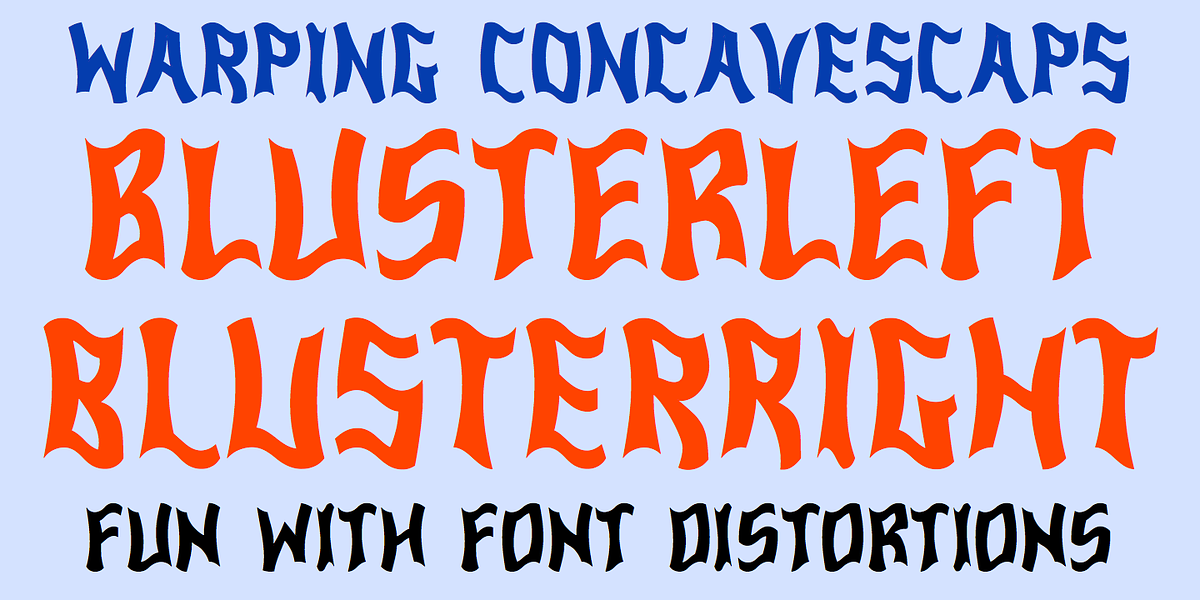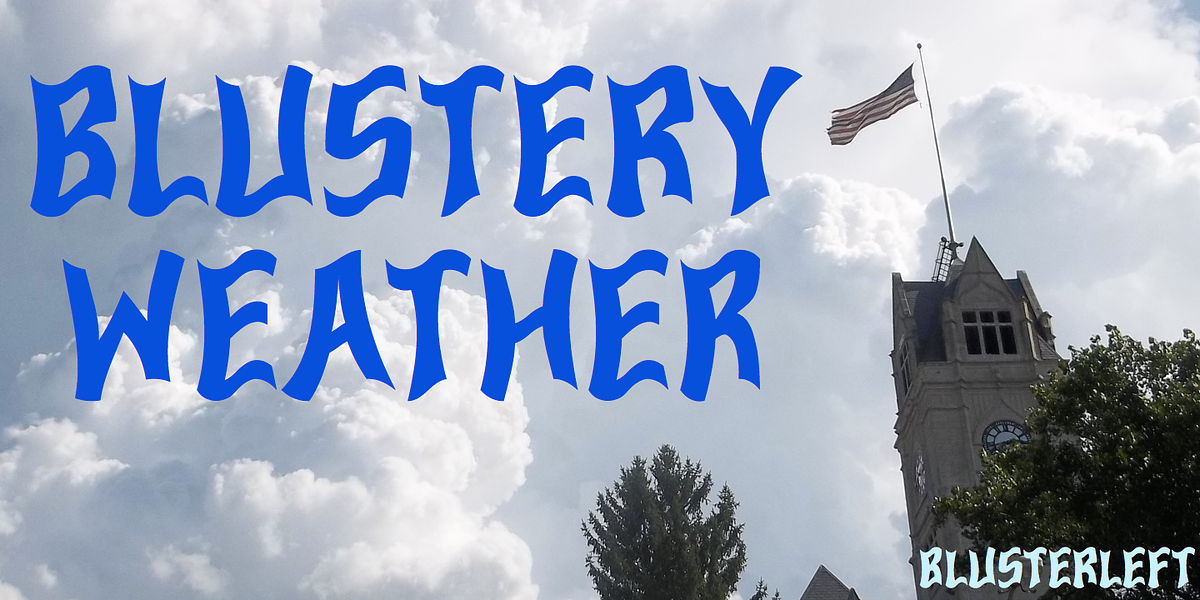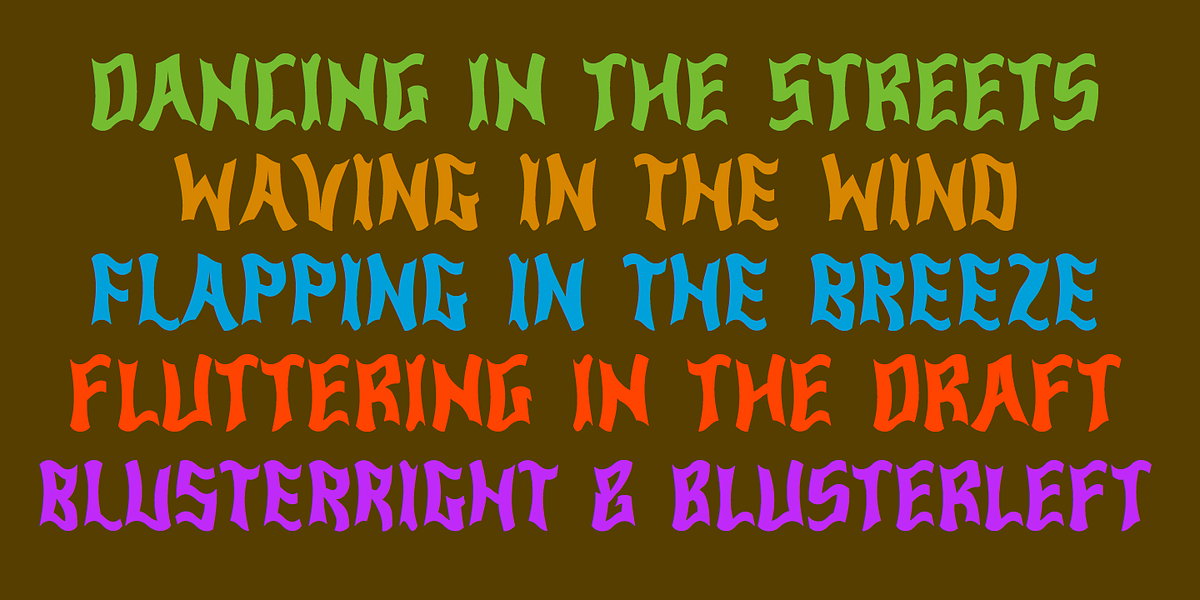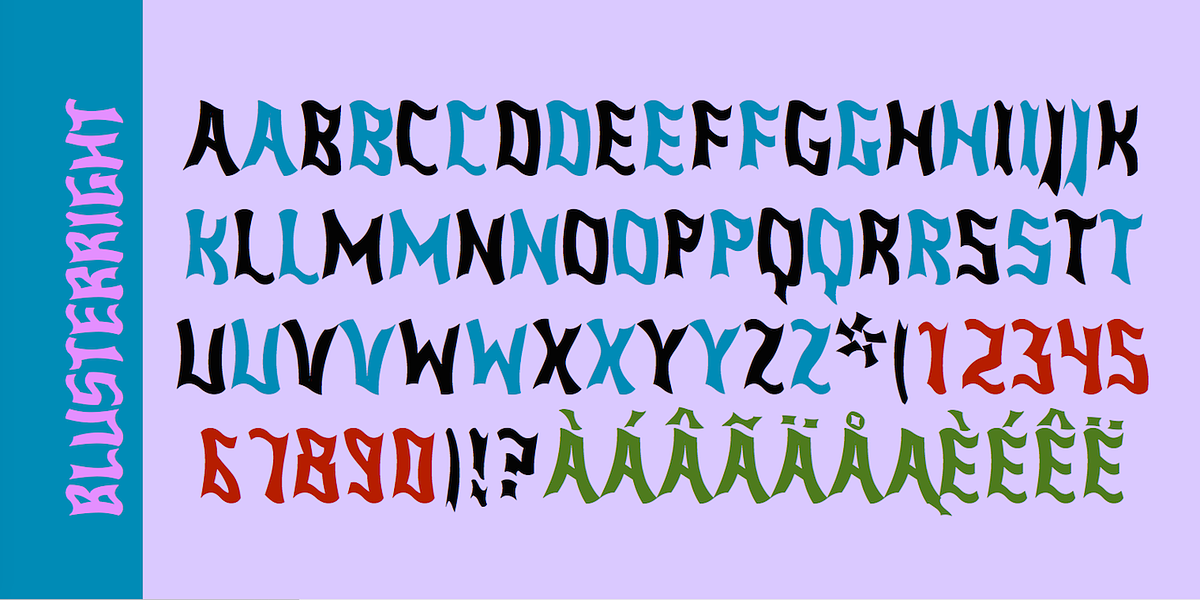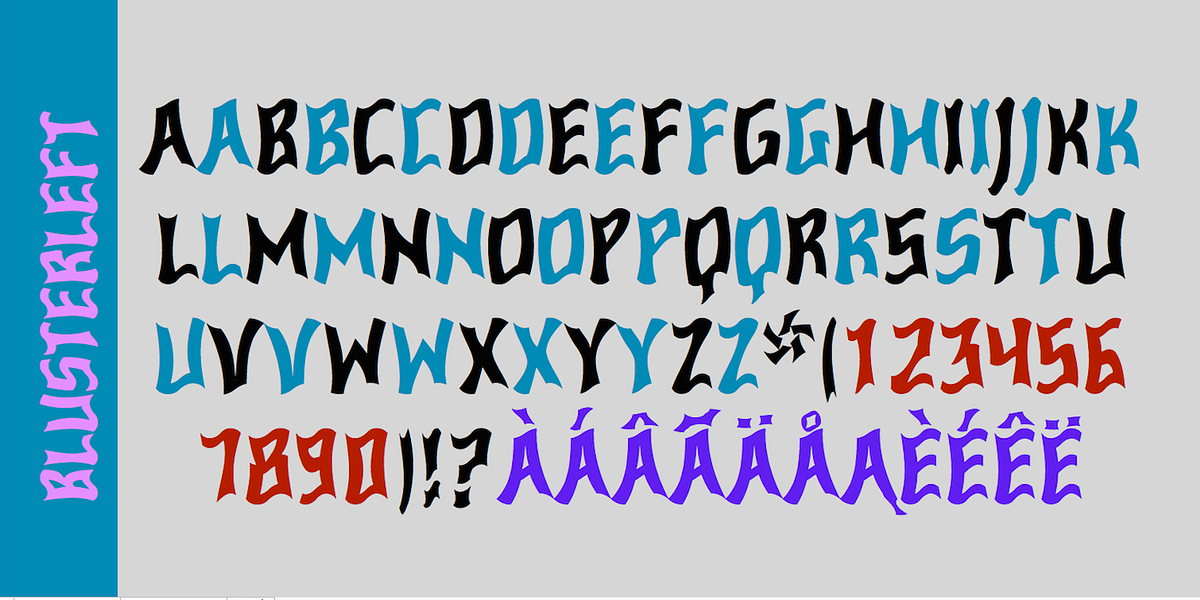
Bluster
BlusterLeft and BlusterRight are designed to resemble the effects of wind on a sans serif typeface. They achieve this by applying distortions that give the impression of letters flopping in the breeze.